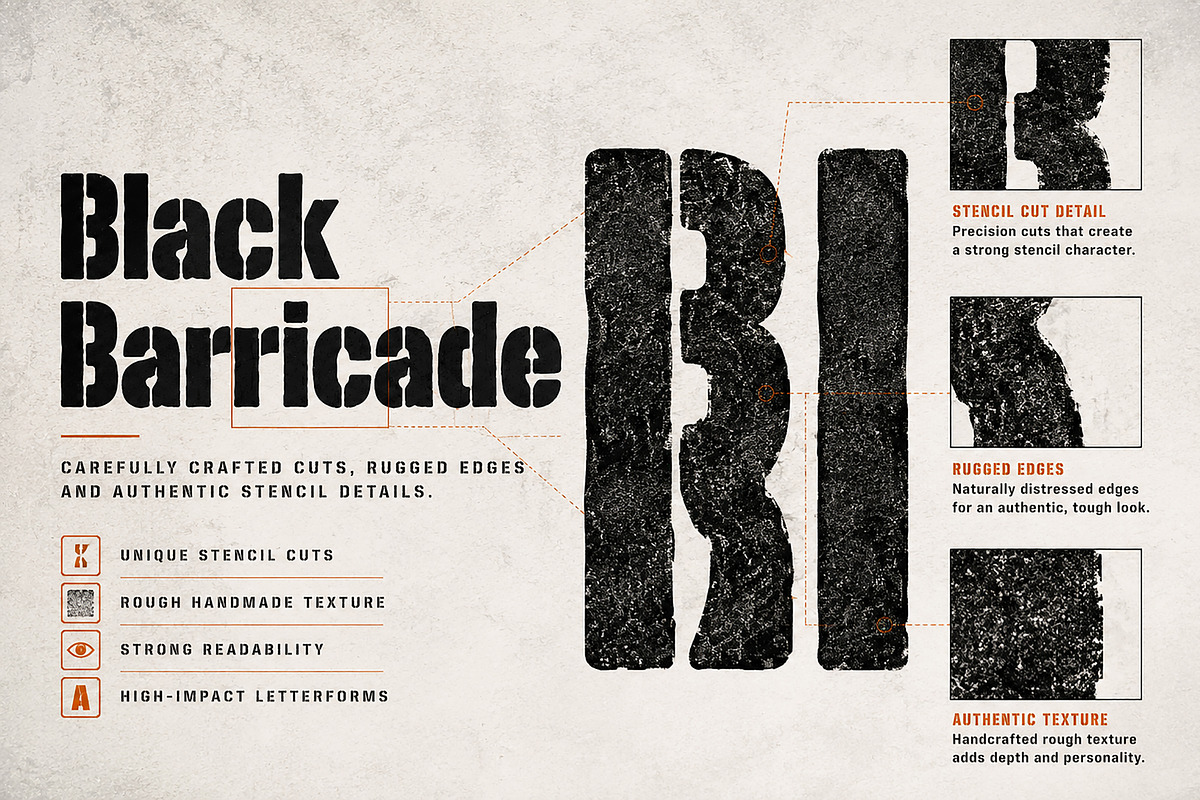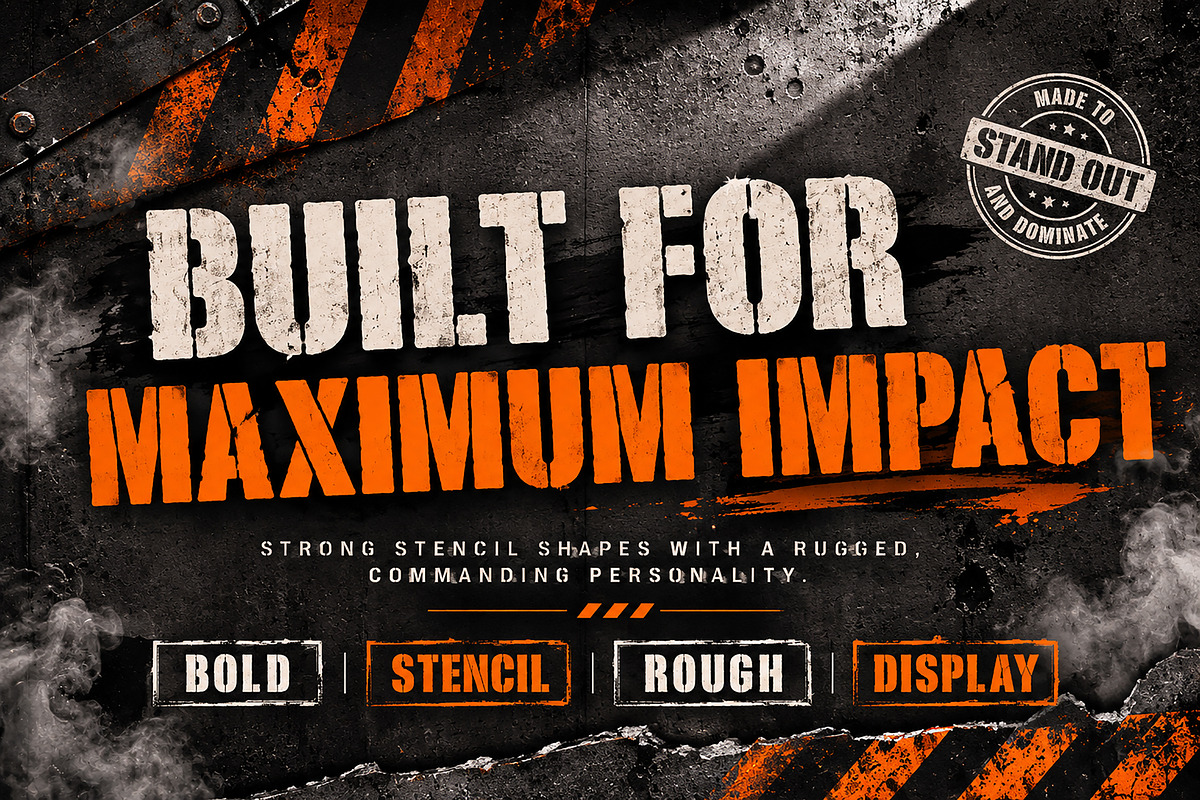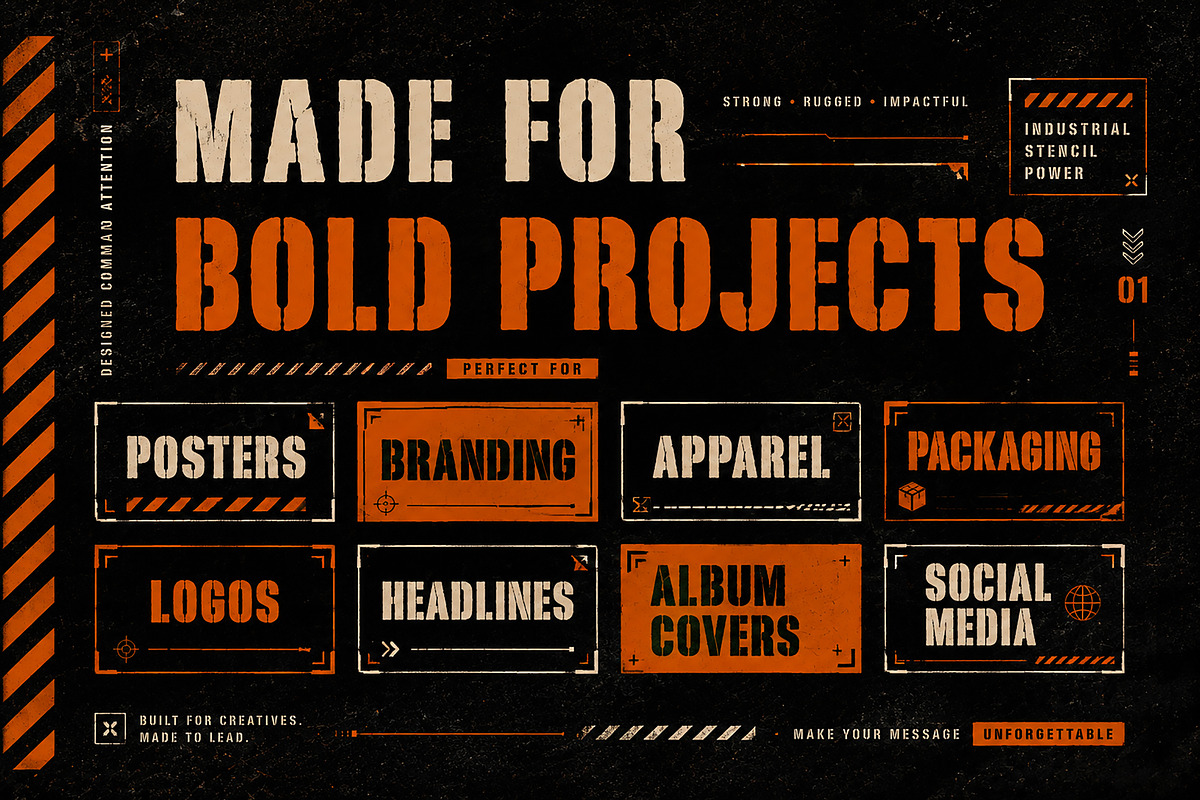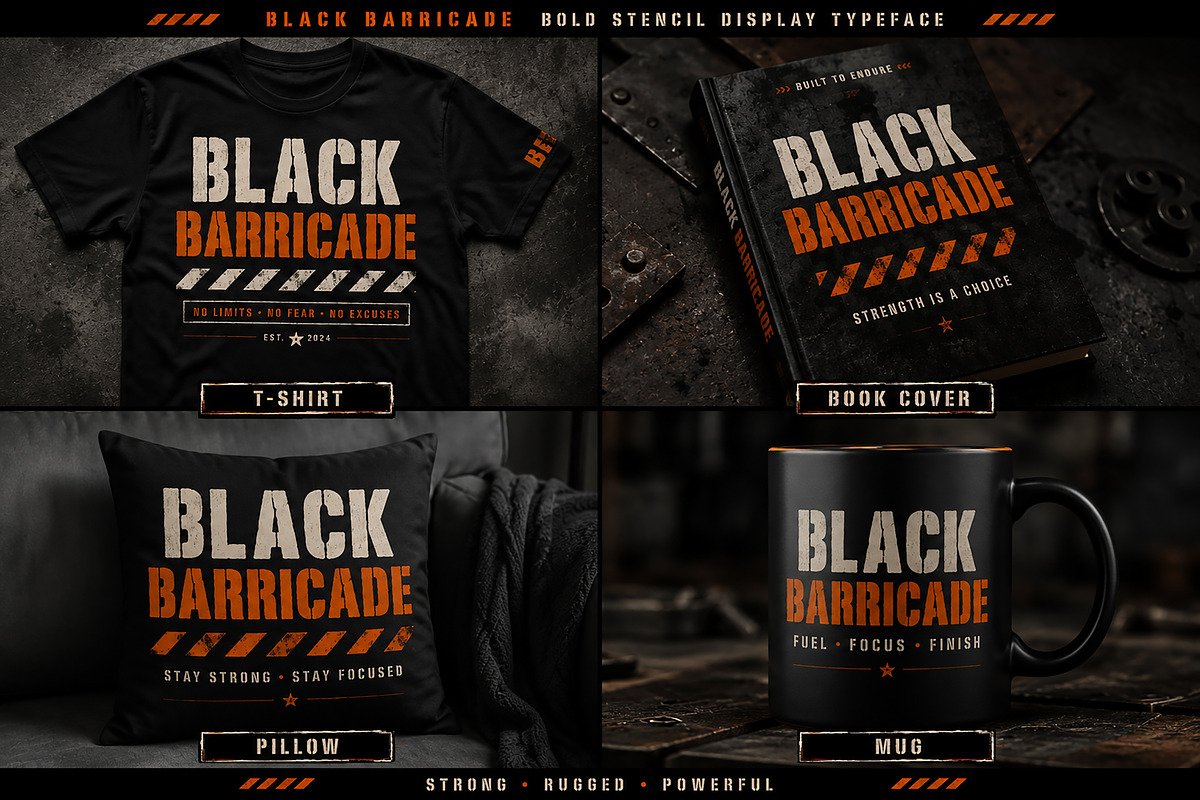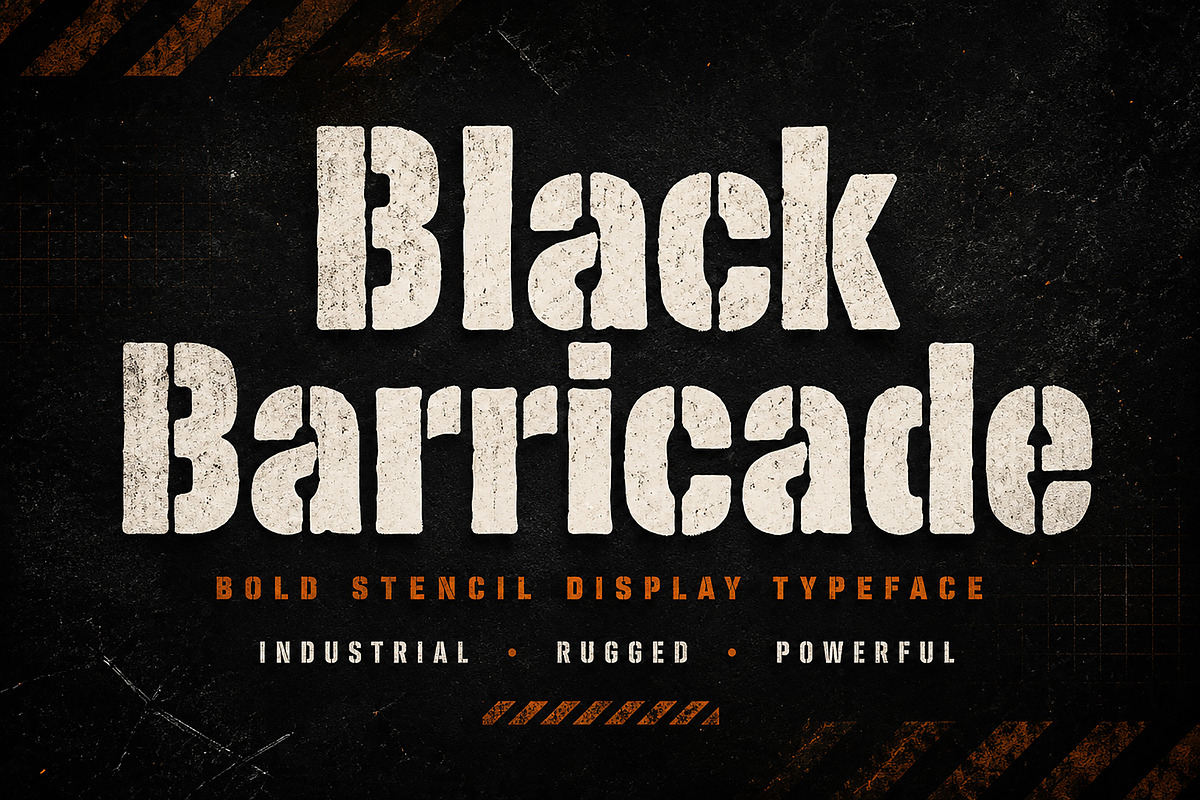
Black Barricade
Bold Stencil Display Typeface
Black Barricade is a bold stencil display typeface built for designs that demand attention. Inspired by military markings, industrial signage, construction barriers, and rugged urban aesthetics, this font combines powerful letterforms with authentic stencil cuts to create a striking visual impact.
Designed for bold headlines and statement typography, Black Barricade delivers a strong, confident appearance while maintaining excellent readability. Whether you're designing posters, branding, apparel, packaging, album artwork, or promotional graphics, this typeface adds an industrial edge and unmistakable character to every project.
Its carefully balanced stencil structure makes it suitable for both modern and vintage-inspired designs, giving your work a professional and commanding presence.
Posters
Branding
Logos
Apparel Design
Packaging
Album Covers
Headlines
Gaming Graphics
Sports Branding
Tactical & Military Designs
Industrial Projects
Advertising
Editorial Titles
Bold Stencil Display Typeface
Uppercase & Lowercase Characters